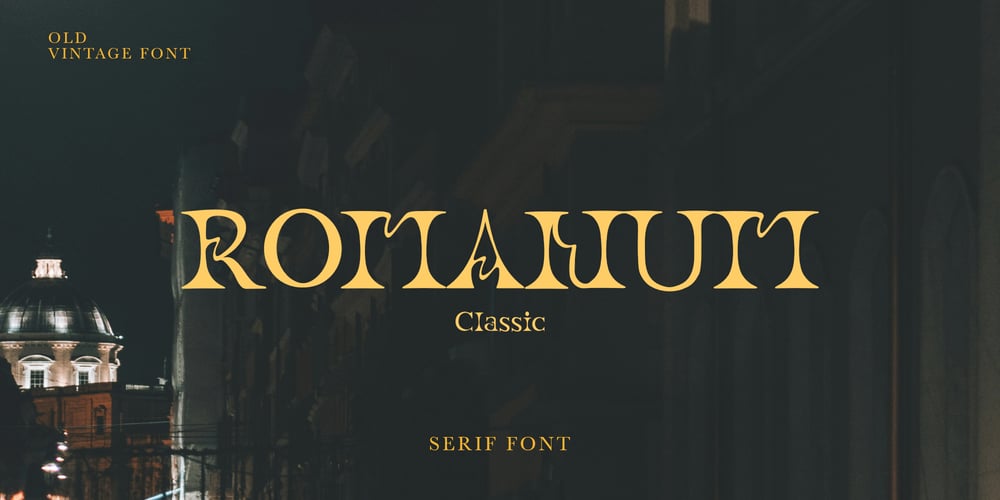
Romanum Classic Font Family was designed by Wahyu Aji Prasetyo and published by WAP Type. Romanum Classic contains 1 styles and family package options. Romanum font serif modern. Its modern design, crafted with classic proportions and quaint serifs, exudes elegance and refinement. Geometric flourishes add a touch of mystery and depth. Perfect for logos, invitations, book covers, spiritual quotes, posters, and anything that needs to convey a sense of intrigue, intellect, and style.